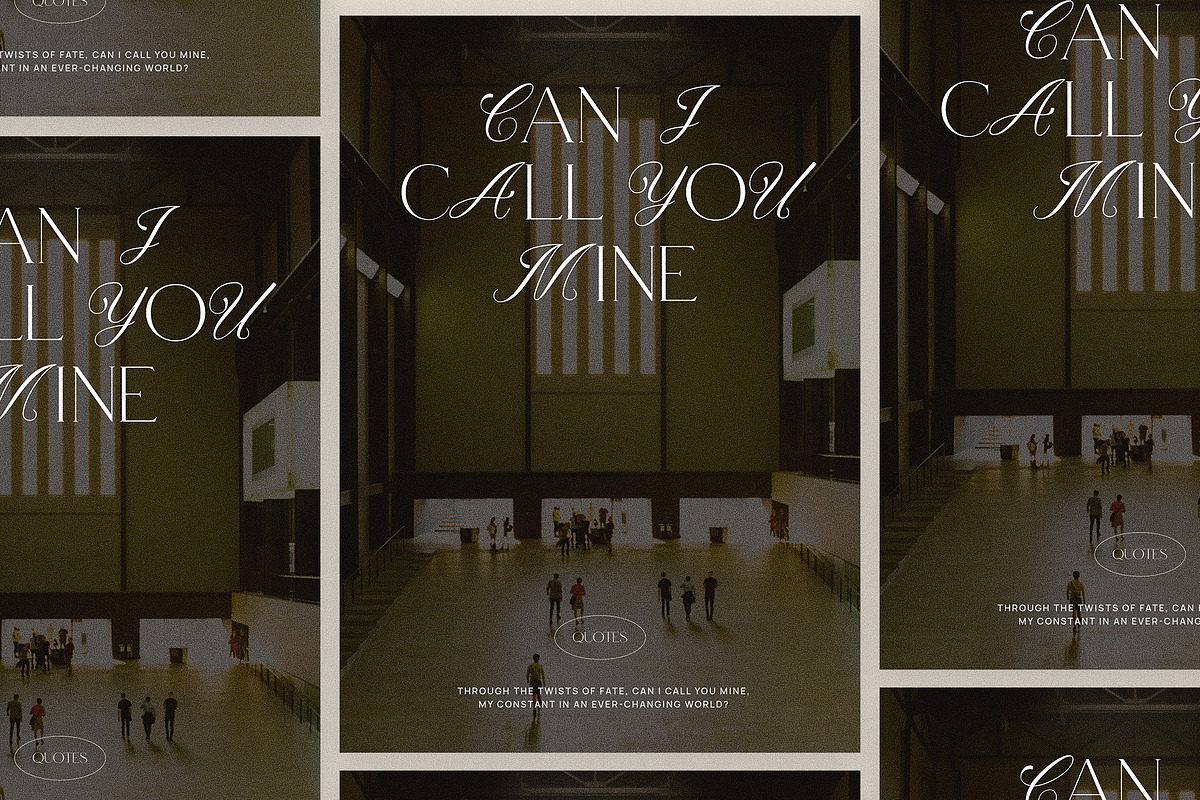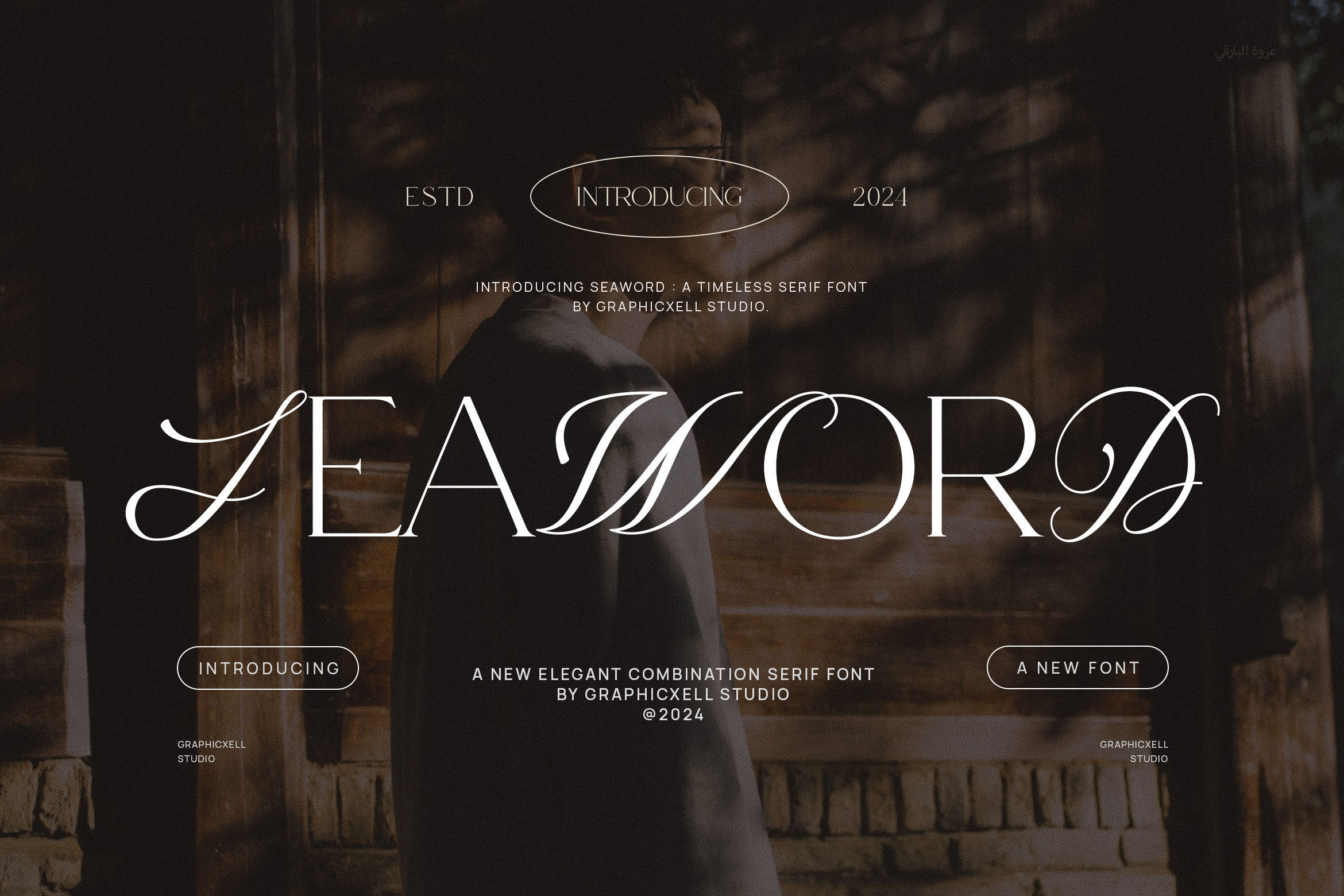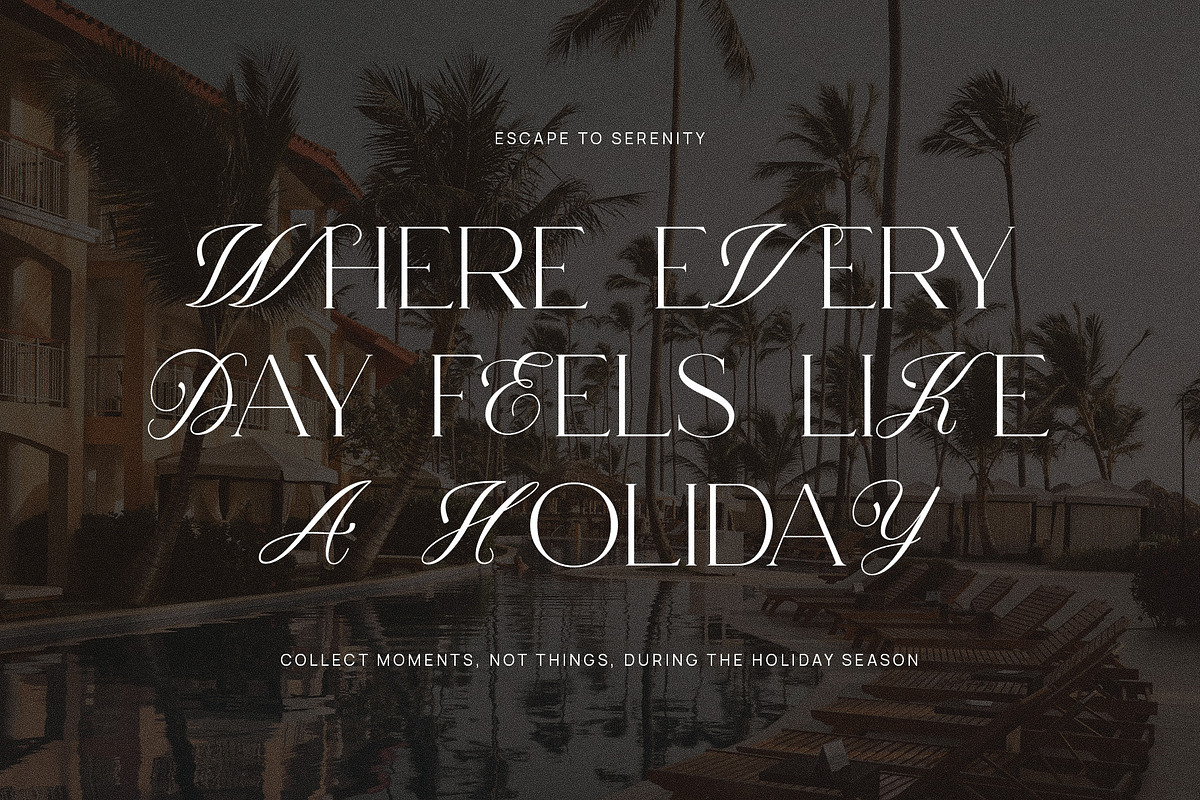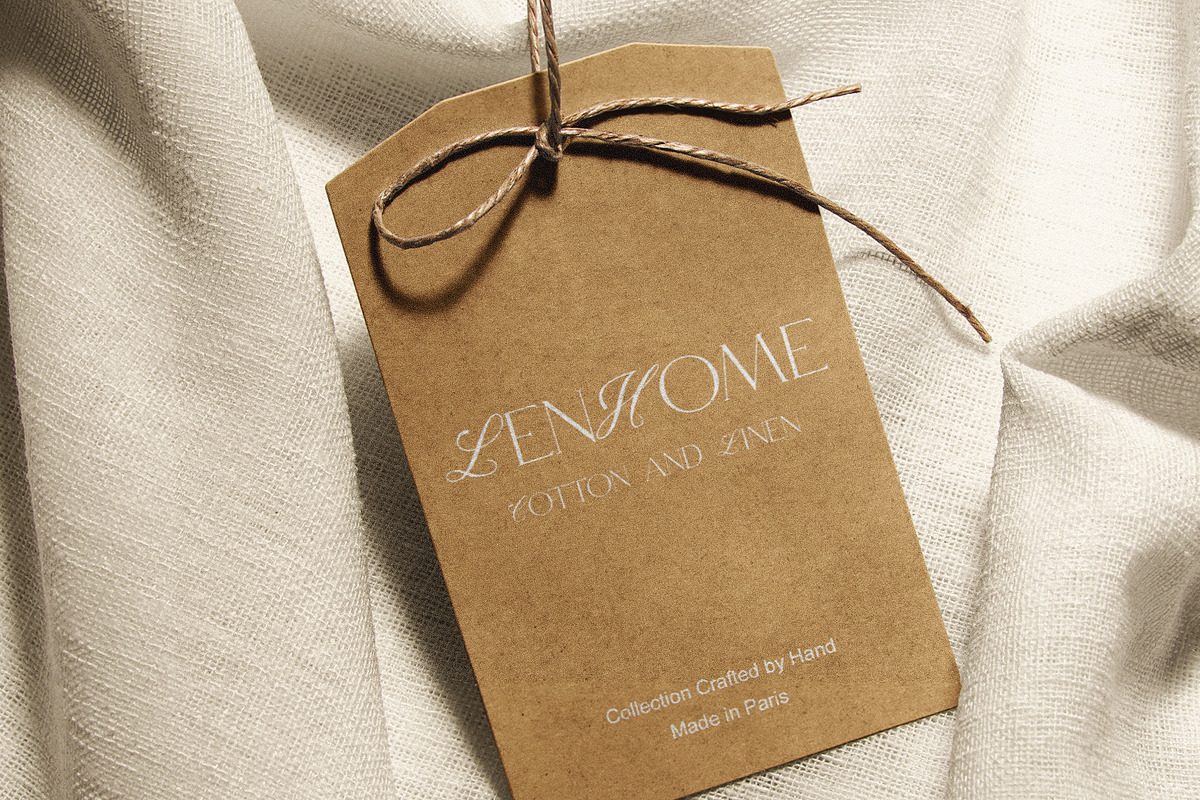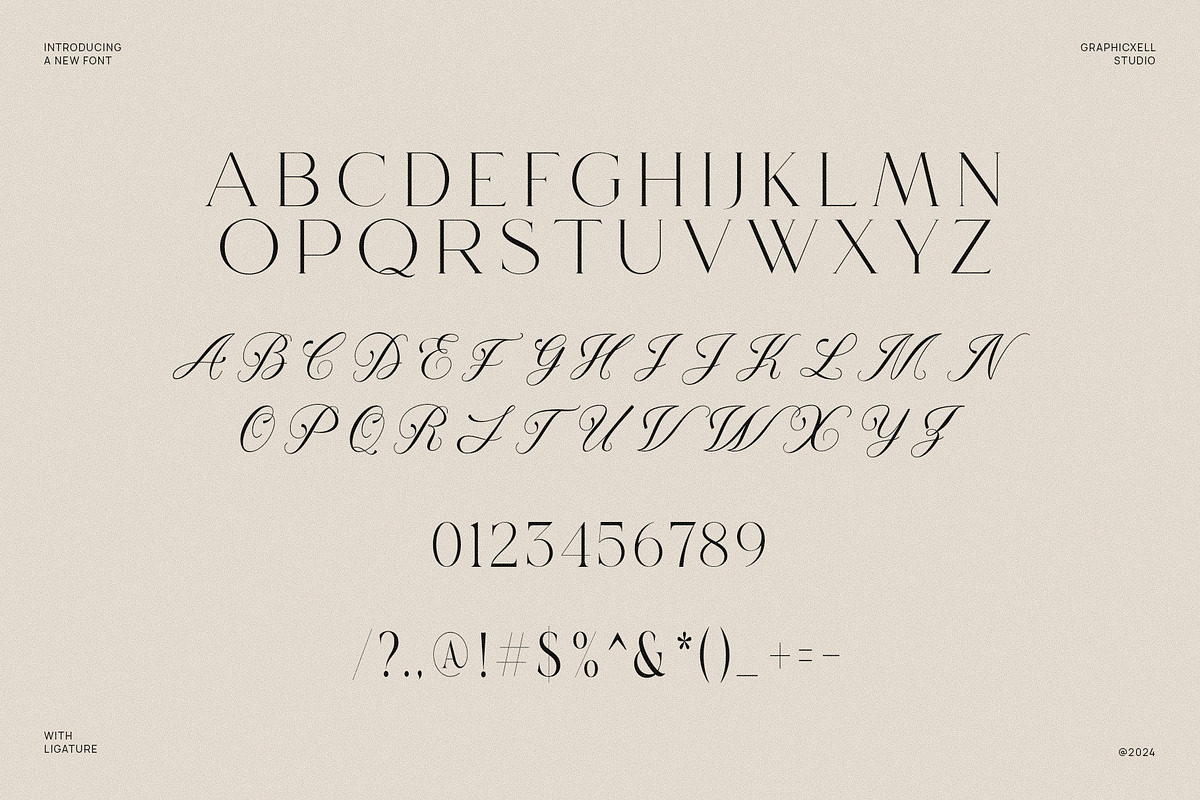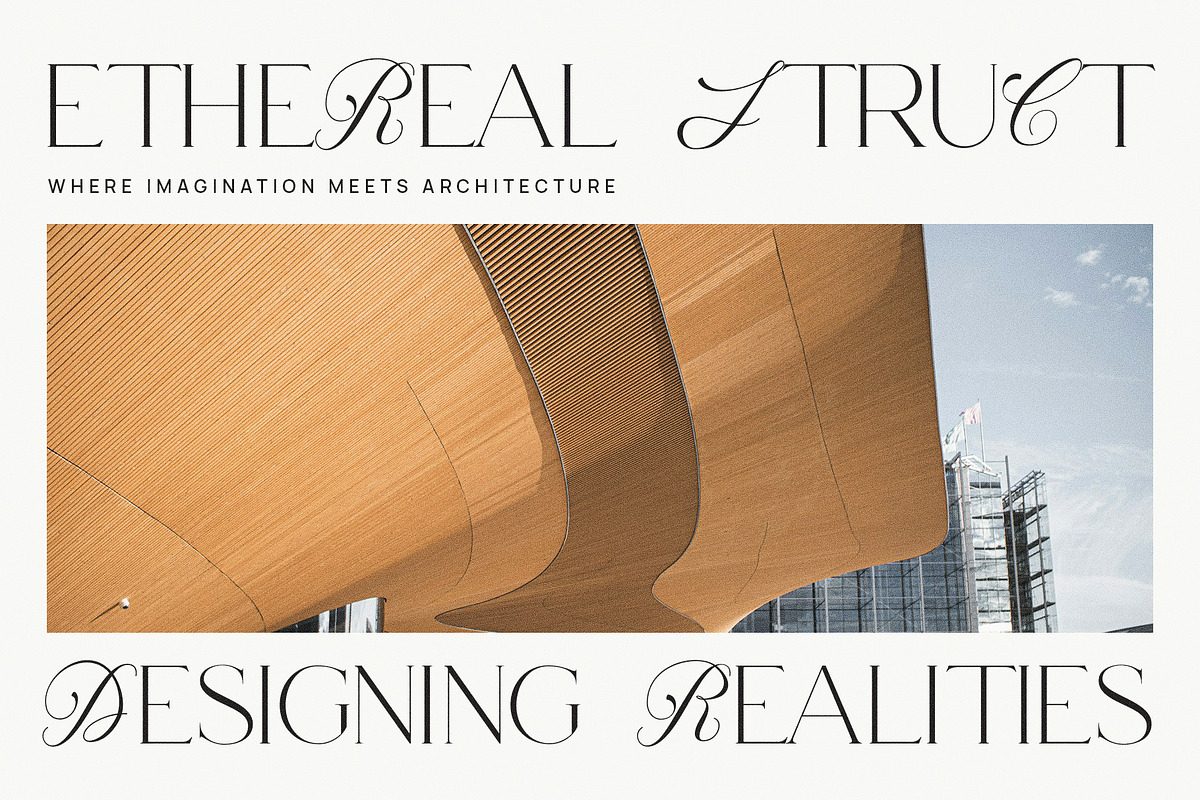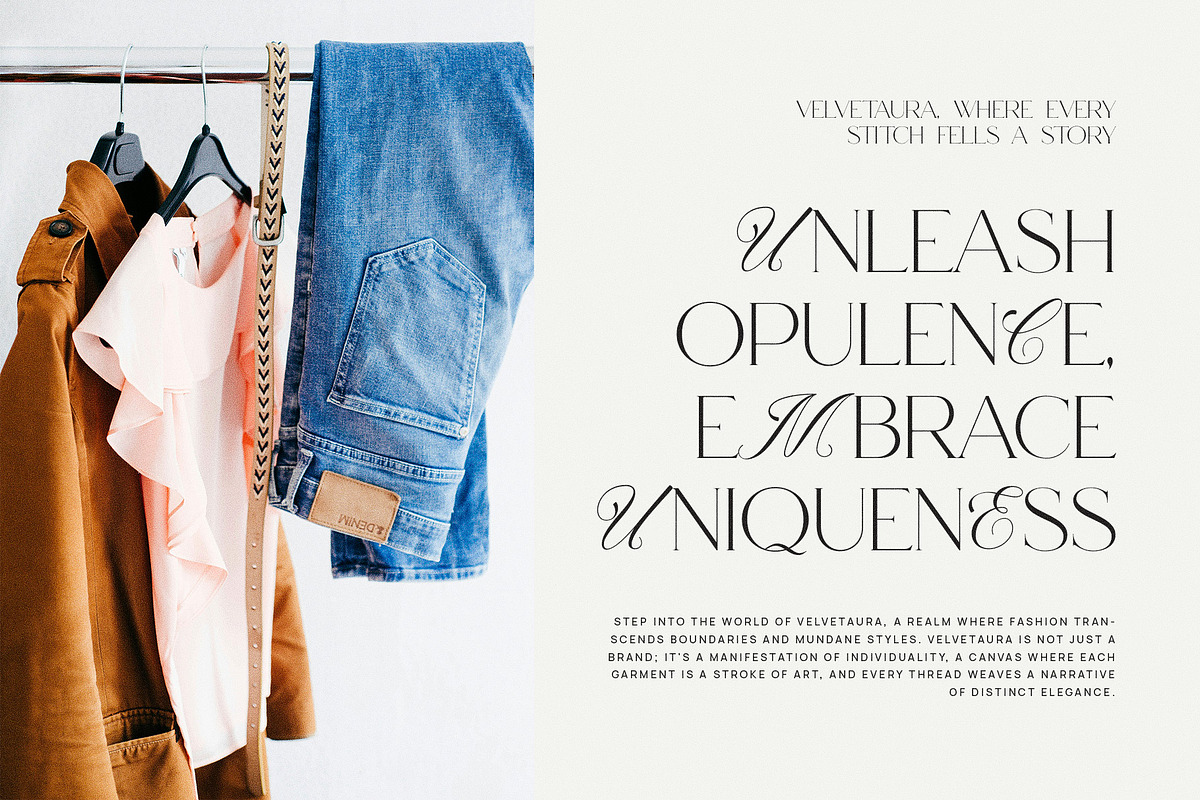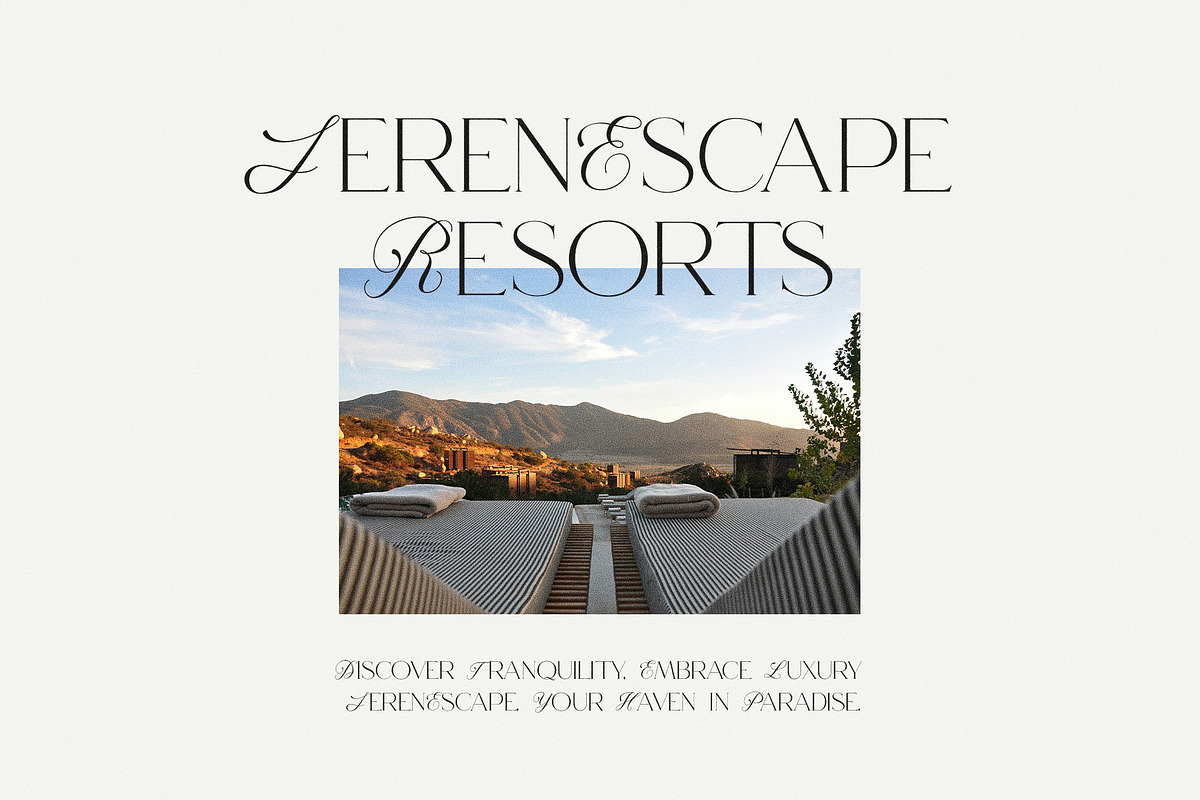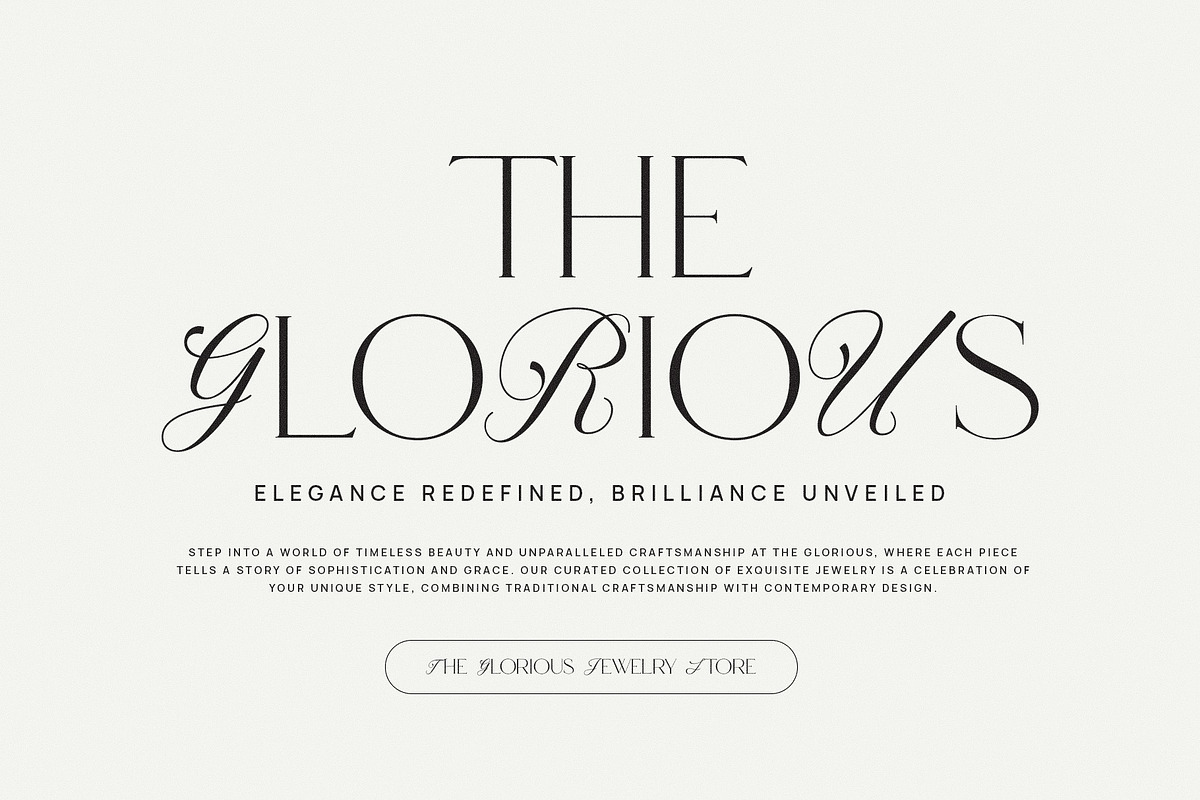
Seaword Calligraphy Serif Font
Seaword Calligraphy Serif Font is a unique font that comes with an elegant style. Usually, it is purposed for logo designs and branding. So, this font is suitable for graphic designers or other relevant jobs. If you are working on branding projects, you will need this classy serif font. Besides that, you can also use this font for other related projects such as stationary, invitations, watermarks, etc. In addition, this serif font can also be a good idea for photography, labels, product designs, product packaging, ads, social media posts, wedding designs, or logos. Since it offers a high level of creativity and readability, this font can deliver your message to the audience through the text you make. Whatever it is for, Seaword Calligraphy Serif Font will work very well on your projects. This font will really create a unique impression. With this impressive serif font, you can create your own work like a pro. You can explore your creativity with it. And, your imagination is the only limit.